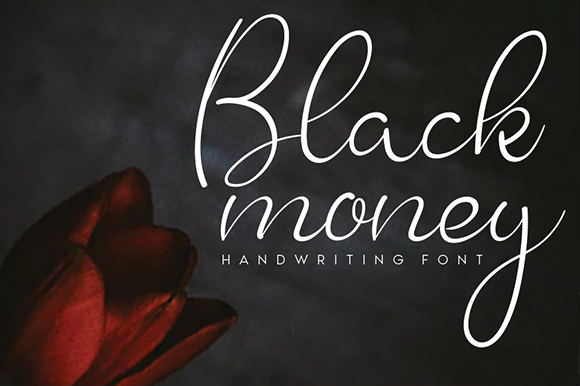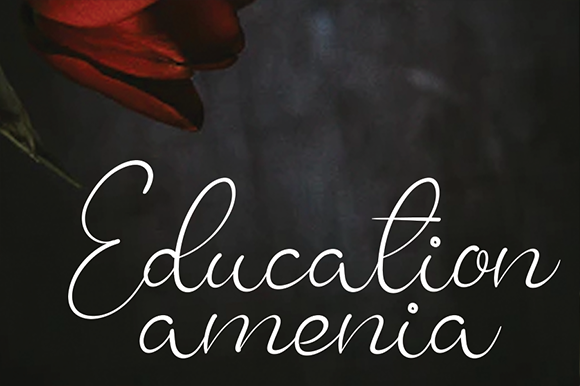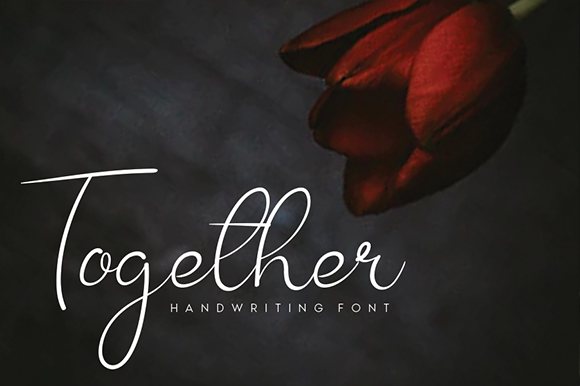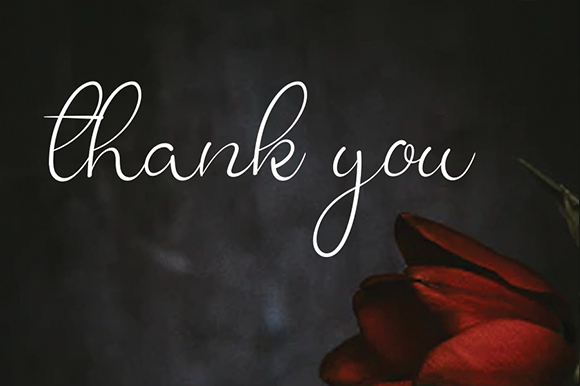
The Sweet Charm of Gollania Font: A Designer’s Delight
I still remember the time I was working on a wedding invitation project, and I just couldn’t find the perfect font to match the elegance and whimsy of the couple’s special day. The client had a clear vision of something classic yet playful, but I was coming up blank. That’s when I stumbled upon Gollania Font, and it instantly stole my heart! 💕
Gollania is a sweet, delicate, and round lettered handwritten font that exudes a sense of warmth and sophistication. Its classic calligraphy influences, combined with a flowing and relaxed style, make it incredibly fitting for a variety of events, including wedding invitations, birthday cards, greeting cards, and more.
The Good: ✨
- 💫 Elegant and refined, perfect for formal events
- 🎨 Versatile and adaptable to various design styles
- 🌈 Beautifully crafted with attention to detail
The Not-So-Perfect: 🤔
- ⚠️ Limited availability of stylistic alternates
- 🤔 May not be the best fit for very casual or playful designs
The Story Behind Gollania Font: Designer Inspiration
Gollania Font was crafted with love and care by a talented type designer who drew inspiration from traditional calligraphy and handwriting. The goal was to create a font that would evoke a sense of warmth, elegance, and sophistication, perfect for special occasions and everyday use.
Q: What makes Gollania Font unique?
A: Gollania Font’s unique blend of classic calligraphy and relaxed, handwritten style sets it apart from other fonts.
Q: Does Gollania Font come with any additional features or glyphs?
A: Yes, Gollania Font includes a range of OpenType features and glyphs, accessible through compatible design software.
Q: Is Gollania Font suitable for digital use?
A: Absolutely! Gollania Font is optimized for both print and digital use, making it perfect for a variety of applications.